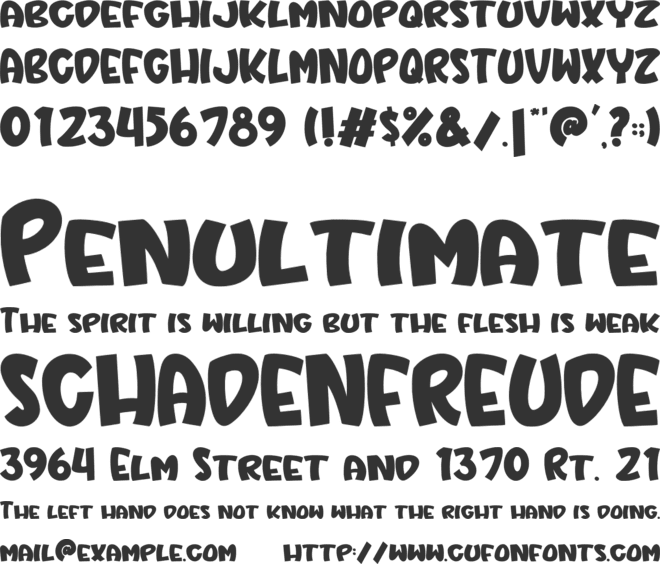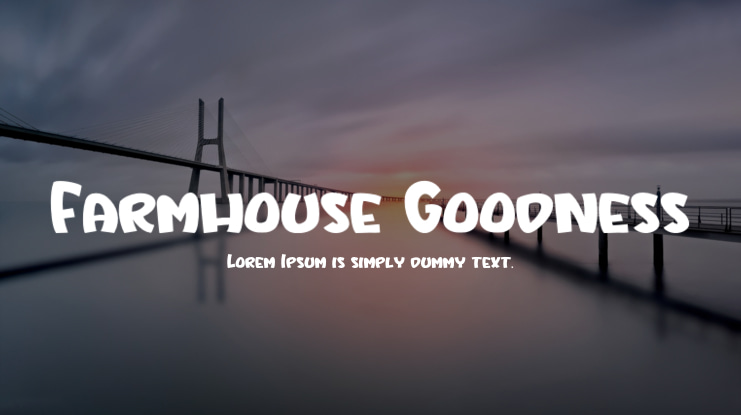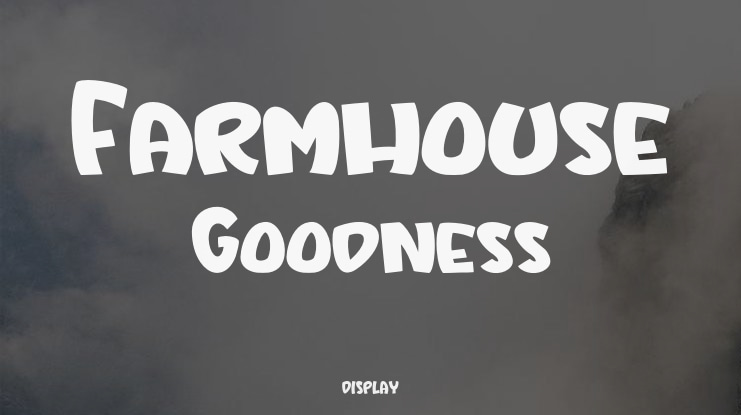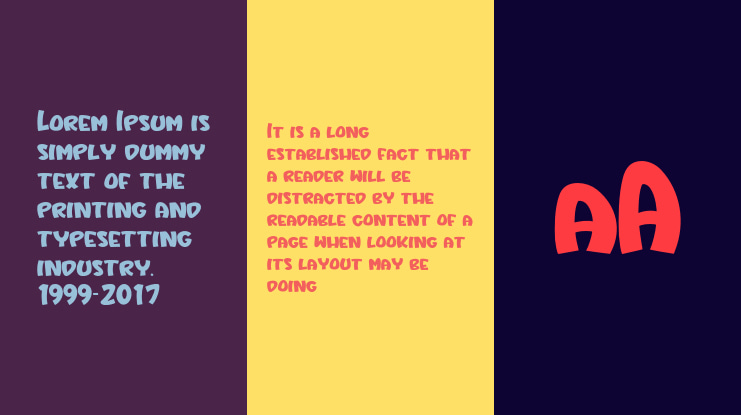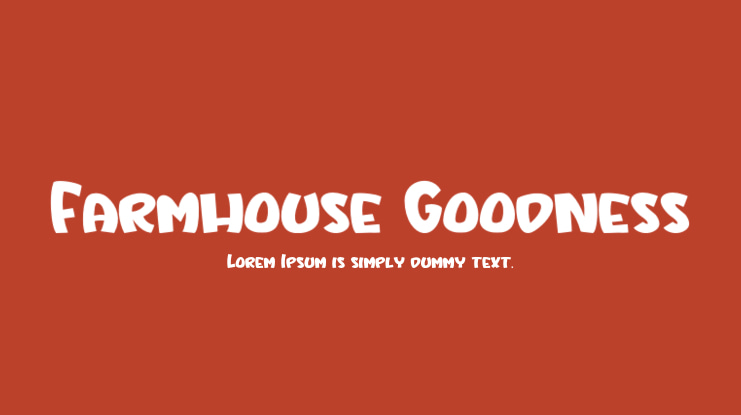
Farmhouse Goodness Font
Farmhouse Goodness - A playful display font that includes lowercase, uppercase, and symbols, and also supports multiple languages. This font features numerous ligatures, alternates, and more. It's perfect for fashion, branding, catalogs, and other design projects. For more free font downloads, please visit Font Bundles.